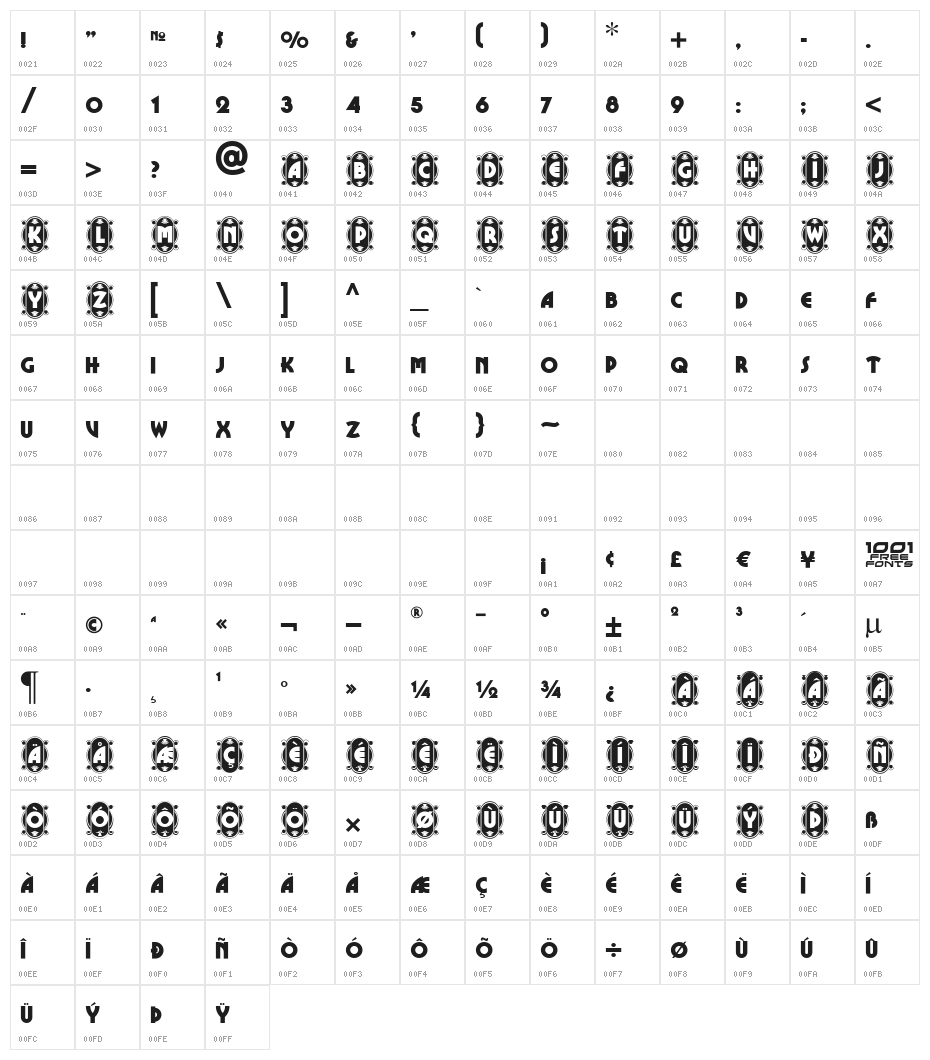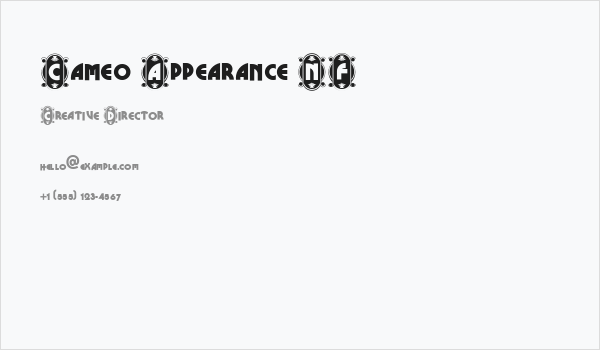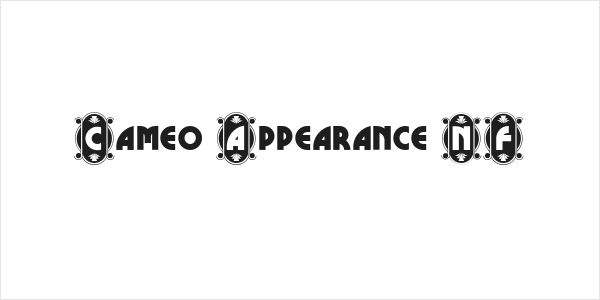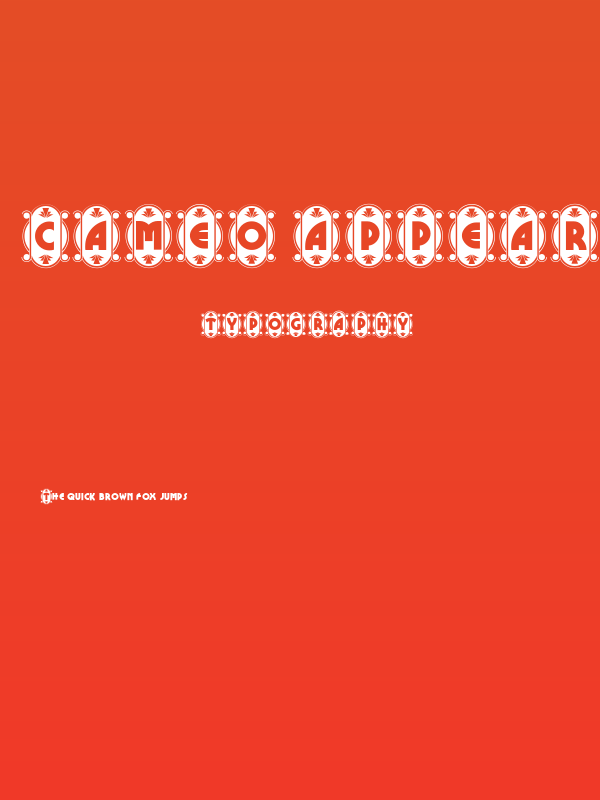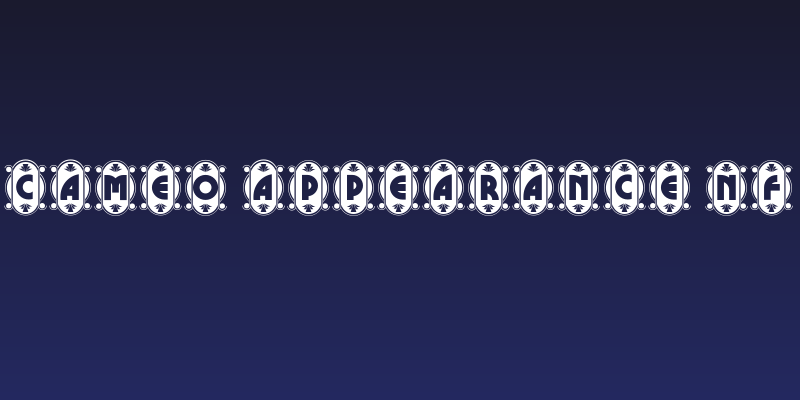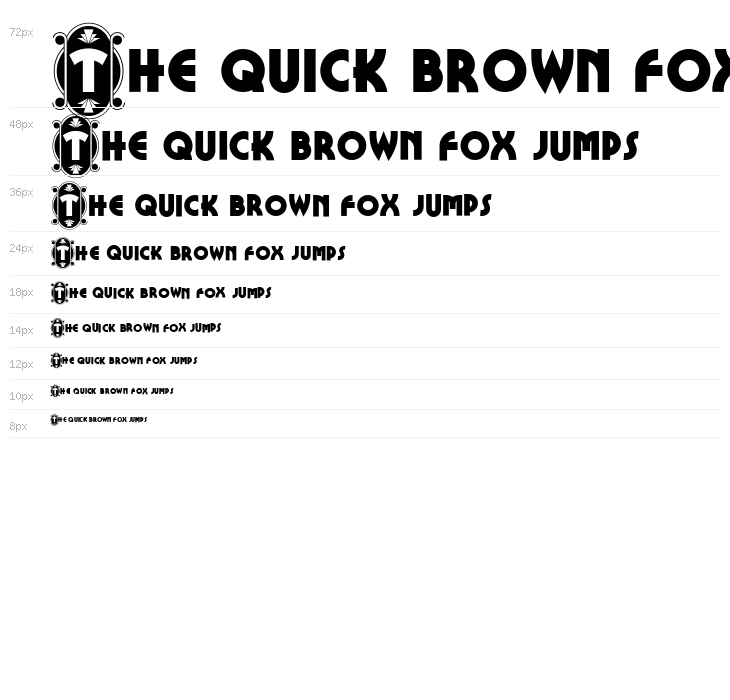
Cameo Appearance NF Font
Cameo Appearance NF Description
This font features a bold and decorative style with a unique flair. The uppercase letters are encased in ornate frames, adding a vintage and theatrical touch. The characters are bold with a strong presence, making them ideal for attention-grabbing designs. The lowercase letters and numbers maintain the boldness but without the decorative frames, offering a more streamlined look. Special characters are also included, each with a distinct style that complements the overall aesthetic. The font's design is reminiscent of vintage signage and art deco influences, making it suitable for projects that require a touch of elegance and drama.
| Proposed Projects | Ideal for vintage-themed posters, theatrical event invitations, and retro branding projects. |